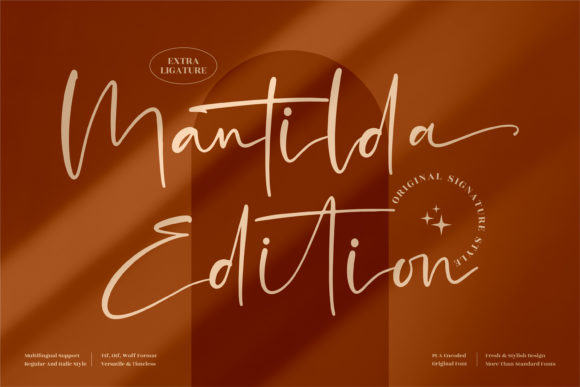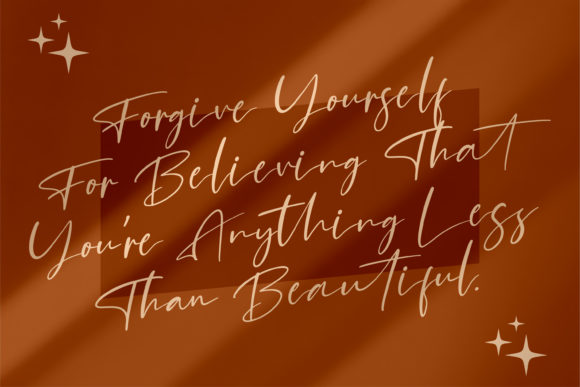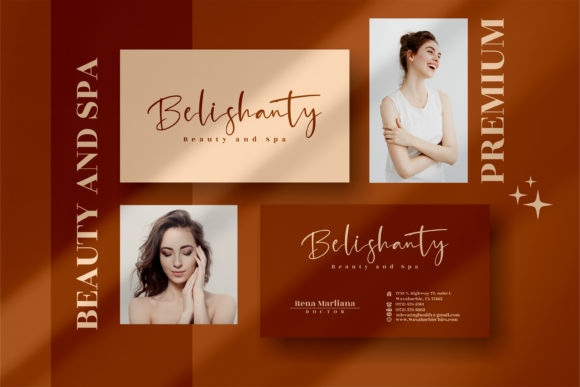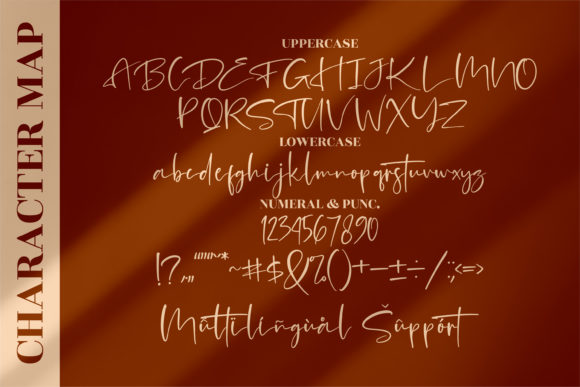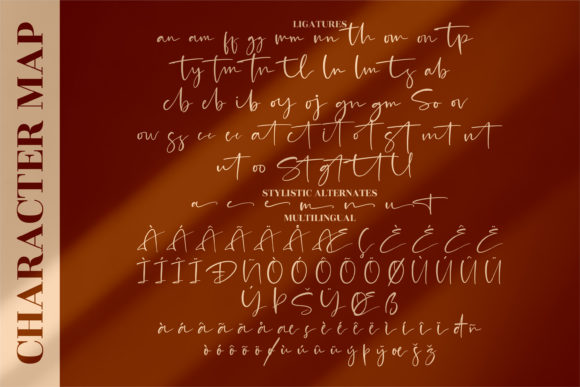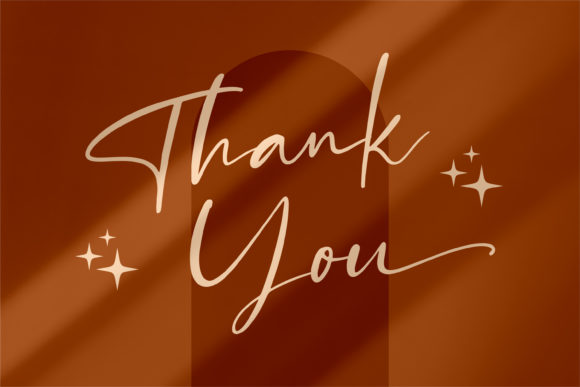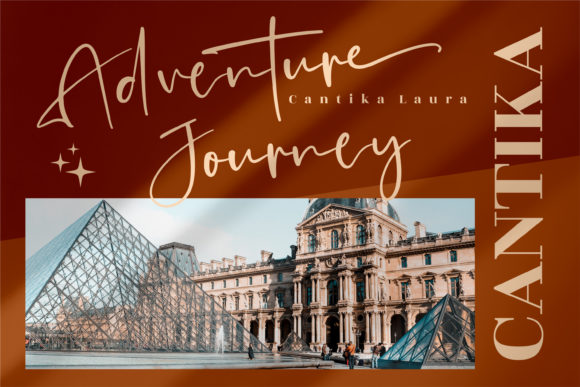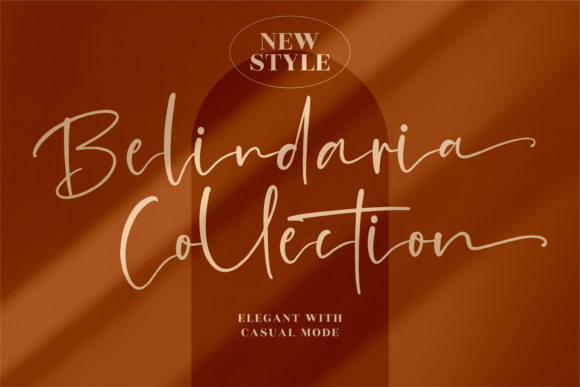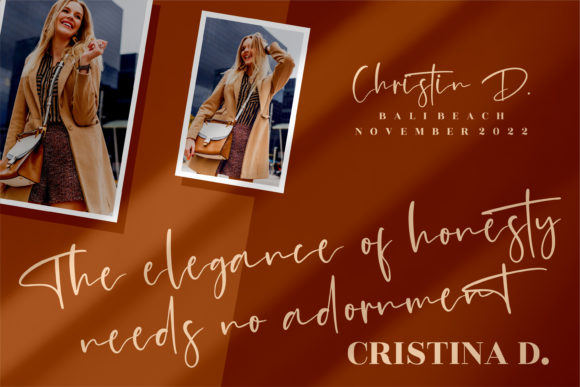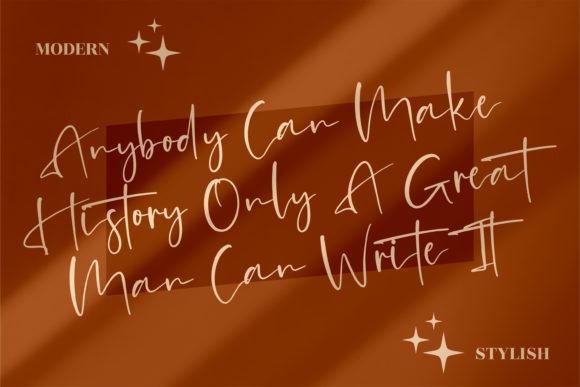
Mantilda Edition Font
About Mantilda Edition Font
Mantilda Edition is a lovely and delicate script font that exudes elegance and class. This font was particularly crafted for those who need a beautiful and refreshing look to their designs.
Mantilda Edition is PUA encoded which means you can access all glyphs and swashes with ease!